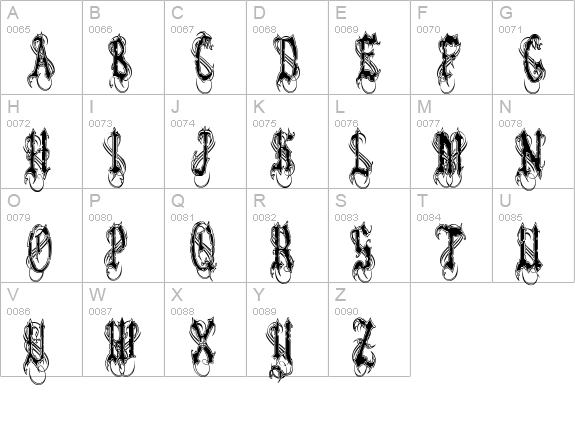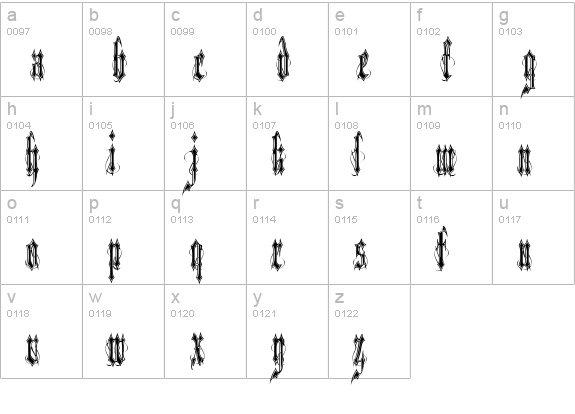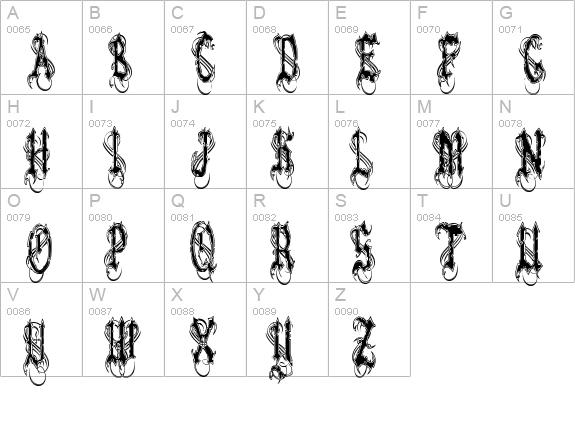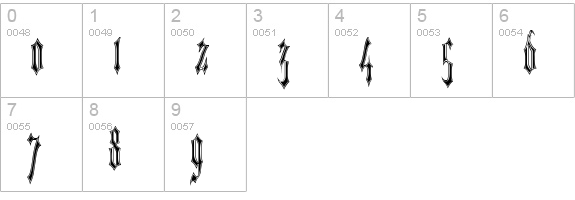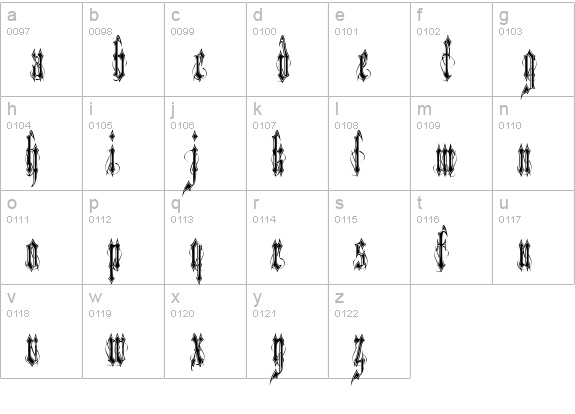
VladTepesII (Vlads Dad) Font Details
VladTepesII (Vlads Dad) font is a striking and captivating typeface that exudes a sense of power and authority. This font pays homage to the legendary ruler, Vlad Tepes II, famously known as Vlad the Impaler, who left a lasting mark on history with his fearless leadership and uncompromising nature. Designed with meticulous attention to detail, VladTepesII (Vlads Dad) font embodies the essence of strength and dominance. Its sharp edges and bold strokes convey a commanding presence, making it an ideal choice for headlines, titles, and designs that demand attention. What sets VladTepesII (Vlads Dad) font apart is its unique ability to effortlessly balance between traditional and modern aesthetics. It seamlessly blends the historical significance associated with Vlad Tepes II's legacy while incorporating contemporary design elements. This fusion of styles gives the font a timeless appeal, making it suitable for a wide range of projects, from historical documentaries to edgy branding campaigns. One of the most remarkable aspects of VladTepesII (Vlads Dad) font is that it is freely available to download at FontsMarket.com. This means that designers, enthusiasts, and anyone in need of a powerful and visually striking typeface can access it without any cost. The availability of this font for free allows for greater creative freedom and accessibility, ensuring that anyone can incorporate the essence of Vlad Tepes II's legacy into their designs. So, whether you're working on a historical project, creating a logo that demands attention, or simply seeking to add a touch of strength and authority to your designs, VladTepesII (Vlads Dad) font is your go-to choice. Download it for free at FontsMarket.com and unleash the power of Vlad Tepes II's legacy in your designs.